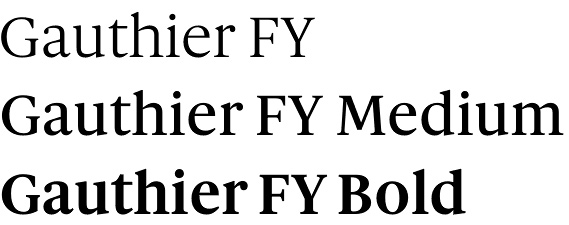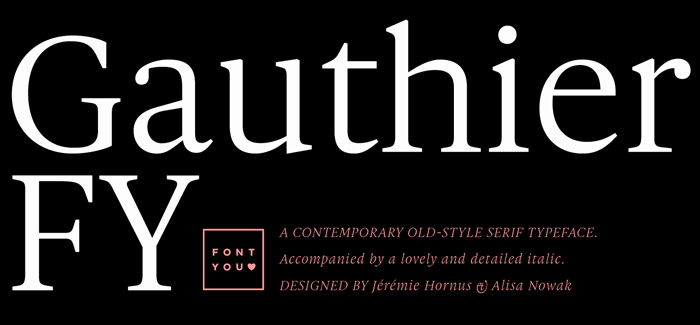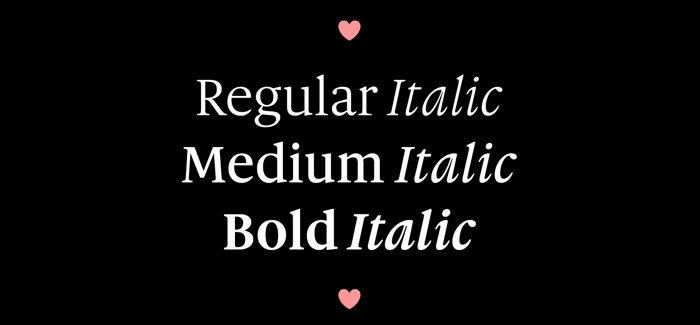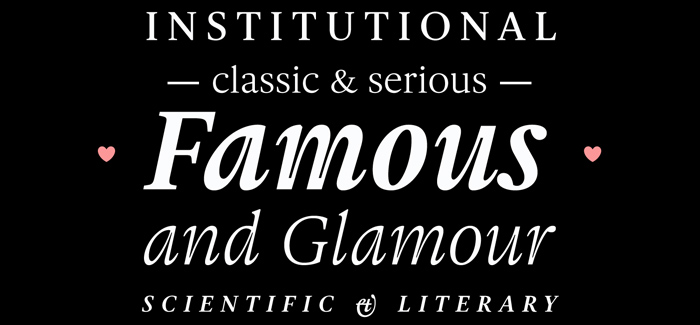
Gauthier FY font
Gauthier FY font family is a modern serif typeface by Fontyou. Developed in 3 separate weights, Gauthier supports unique true italics sold as separate fonts, dominated by original and elegant overall look. It is designed with excellent readability and visual hygiene so that it could sustain maximum of quality when used in different “unfriendly” processes and conditions like screen printing, newspapers, laser printing etc. It’s large x-height and elegant clear serifs provide bespoke look to the typeface making it perfect choice for magazines, newspapers, stationary, headlines, and if you still haven’t tried the italics – make a greeting card with the light version.
Designers: Jérémie Hornus, Alisa Nowak
Publisher: Fontyou